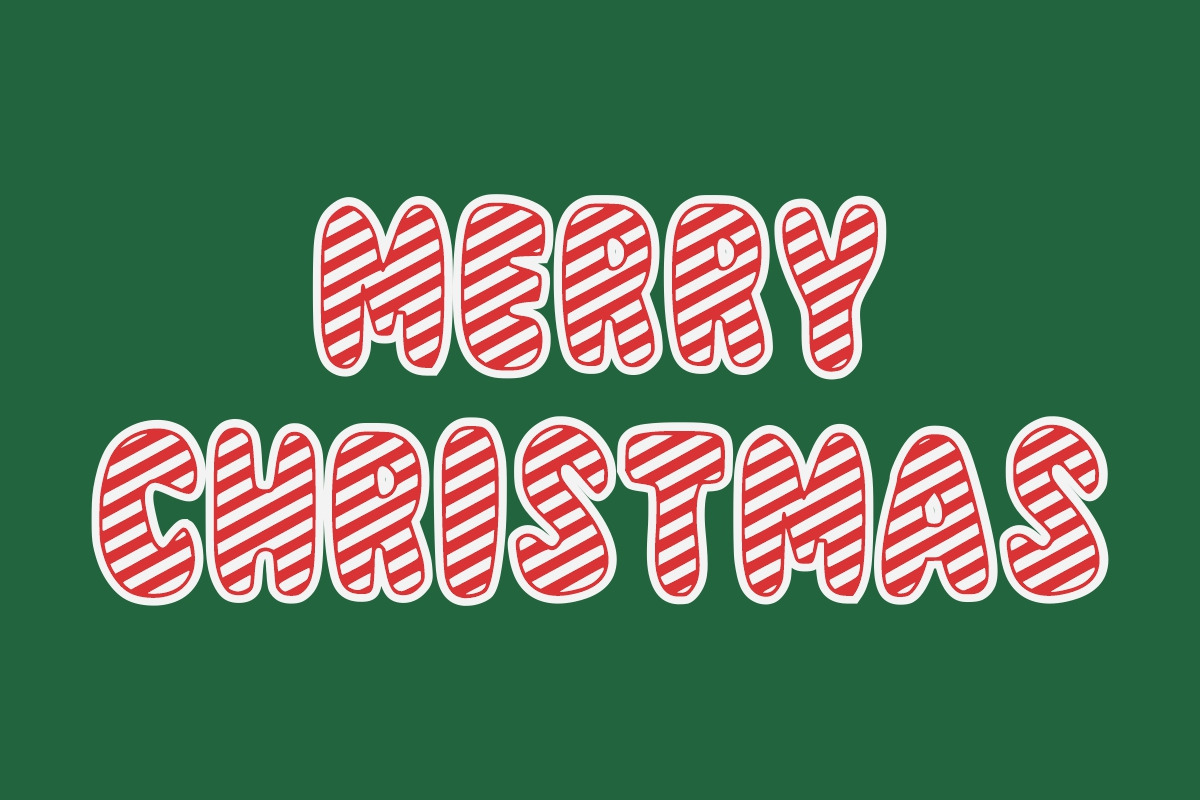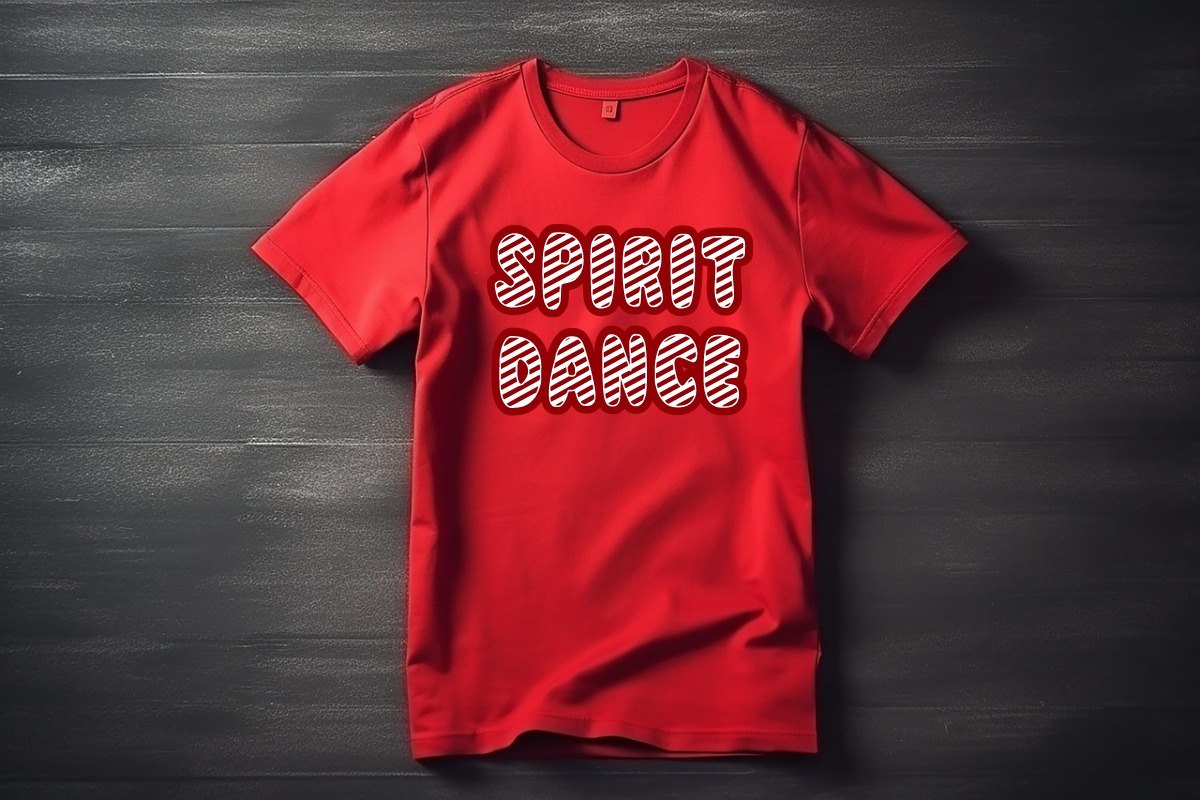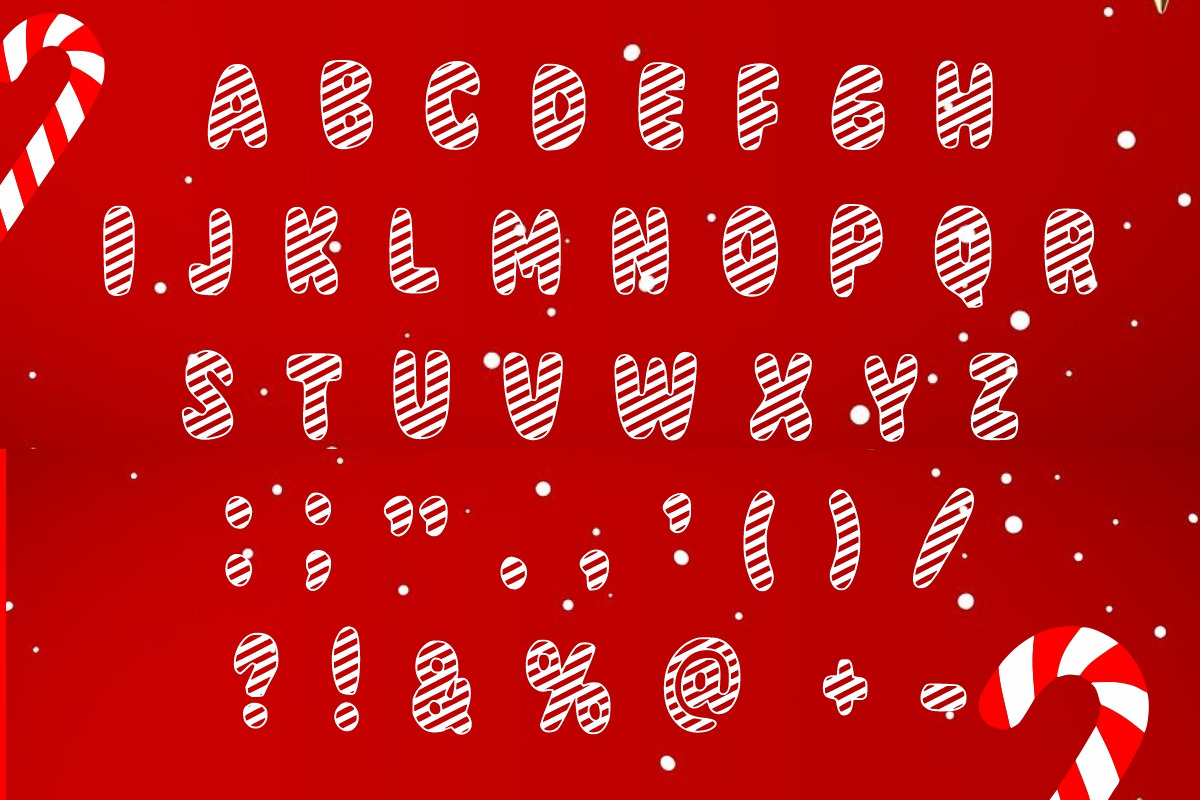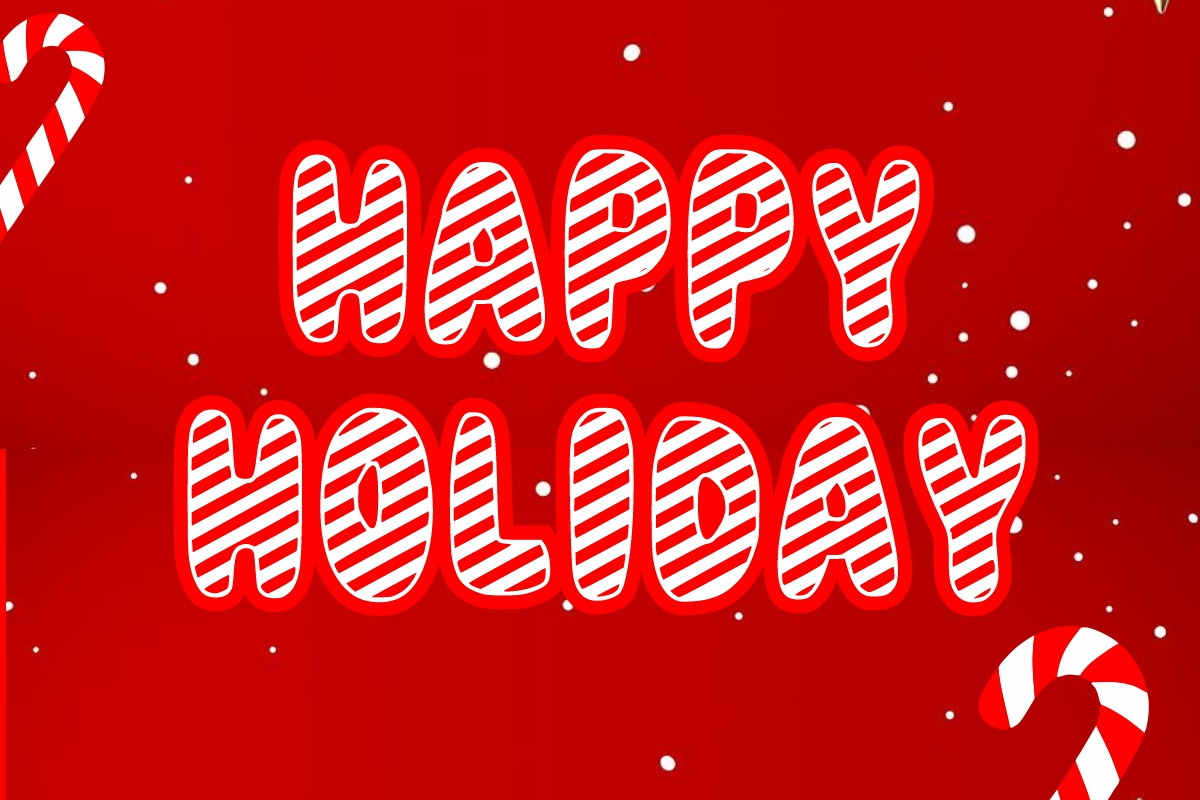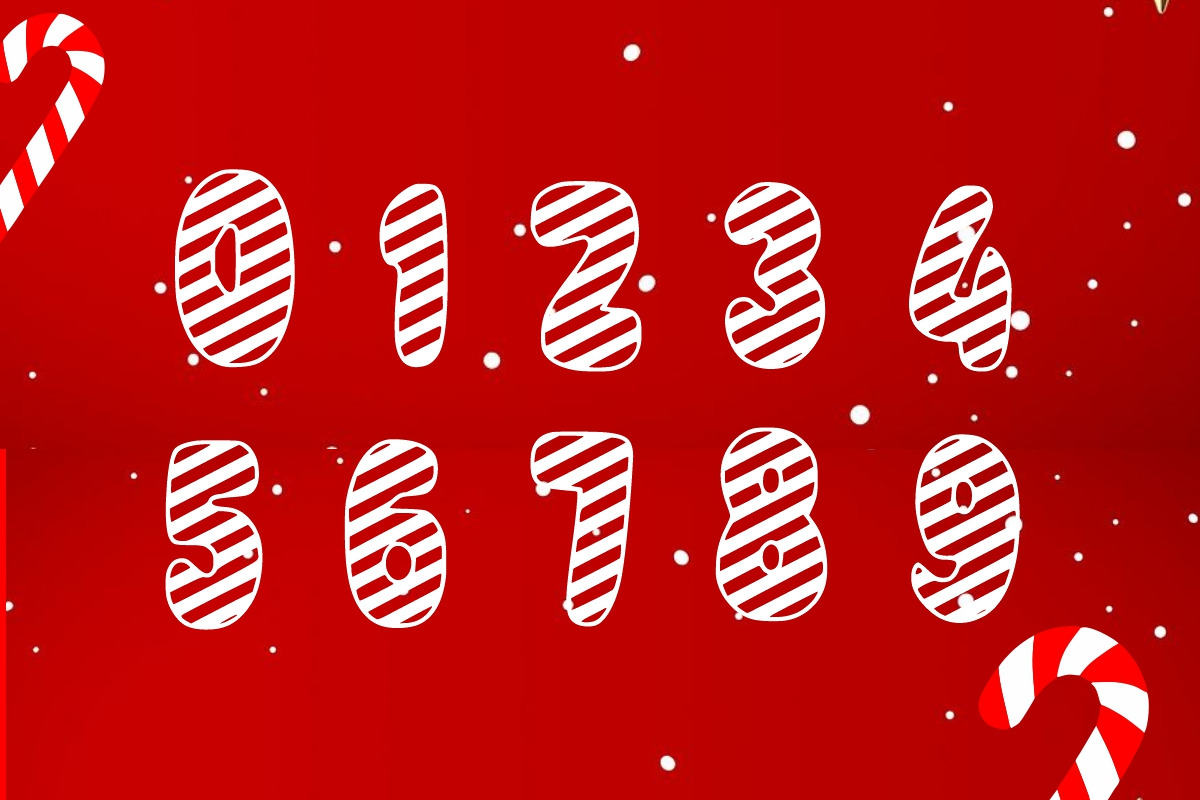
Candy Christmas Font
Sweeten up your holiday designs with Candy Christmas Font, a playful display typeface inspired by festive candy canes and holiday cheer!
With its bold, rounded letters wrapped in red-and-white stripes, this font captures the spirit of Christmas in every character.
Perfect for kids’ projects, Christmas cards, posters, party invites, and seasonal branding, this whimsical font adds a fun and joyful touch to any design. Great for anyone looking to bring a deliciously festive vibe to their holiday creations!